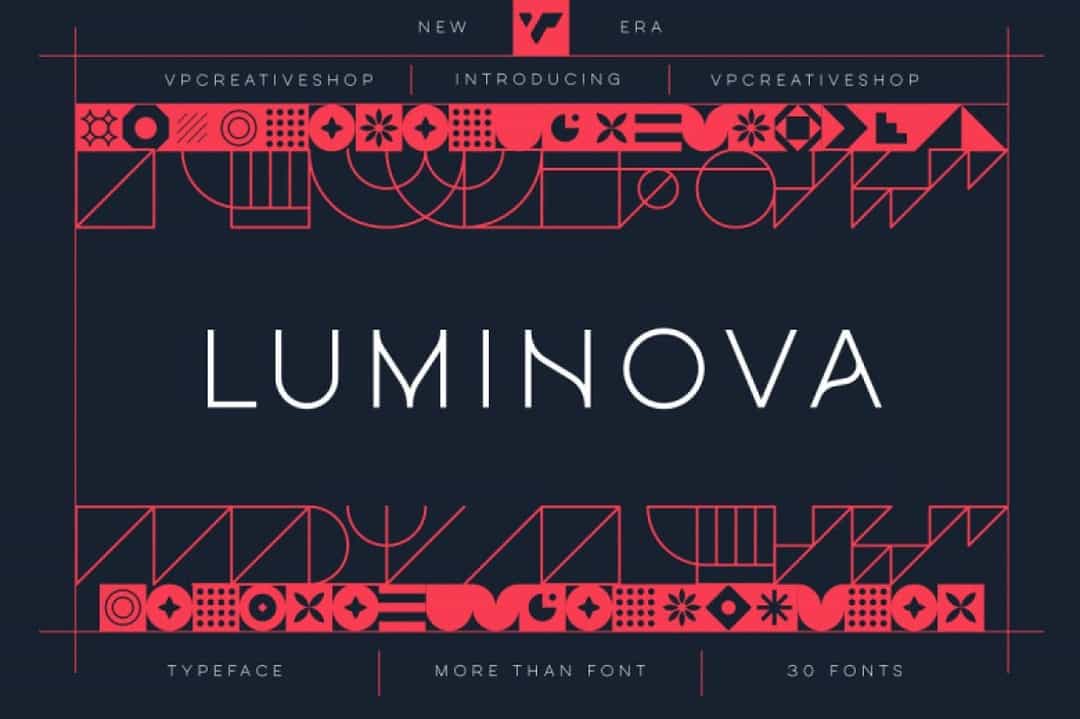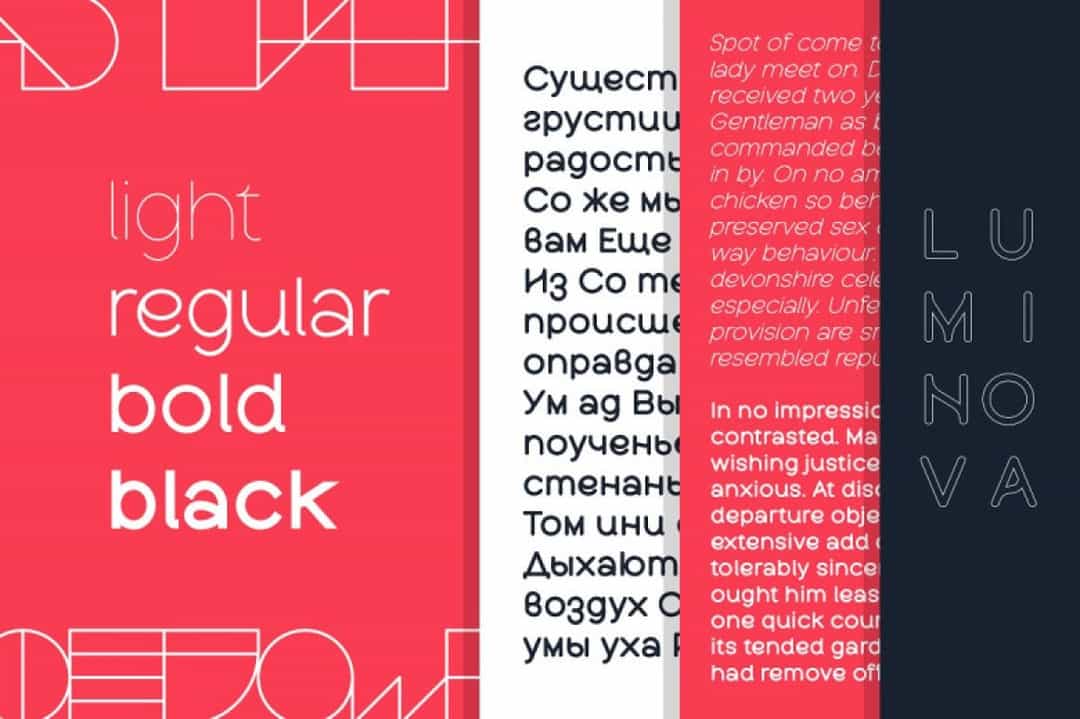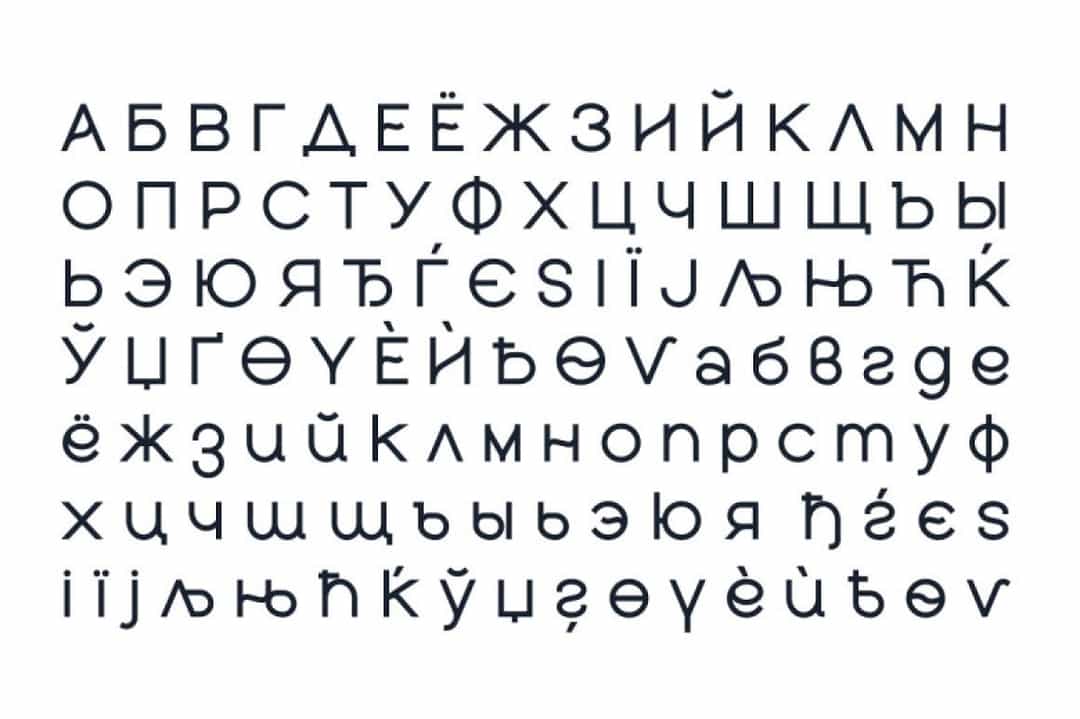
Luminova is much more than an Sans Serif typeface; it’s an incredibly flexible set of 30 fonts designed to spark your creative projects. Boasting its modern and sleek sans serif appearance, Luminova adds an air of sophistication and professionalism to whatever task you may be managing – with styles to match any mood or message in this comprehensive collection of designs.